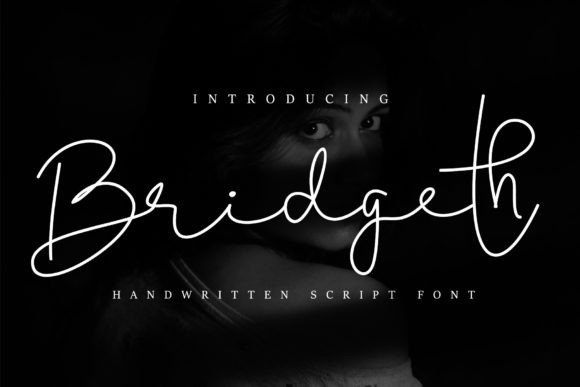
Bridgeth Font
Bridgeth Handwritten Font is a delicate, elegant and flowing handwritten font. It has beautiful and well balanced characters and as a result, it matches a wide pool of designs. It looks stunning on wedding invitations, thank you cards, quotes, greeting cards, logos, business cards and every other design which needs a handwritten touch.